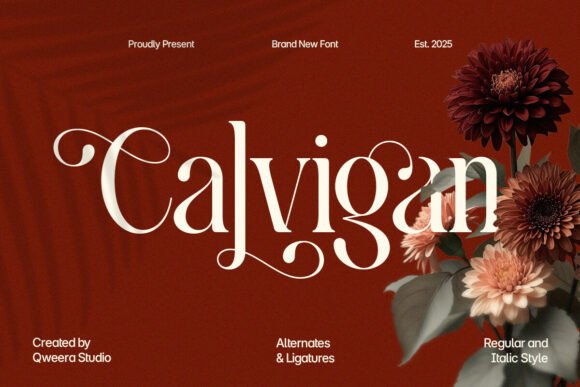
The Elusive Perfect Font: My Encounter with Calvigan Font
As a designer, I’ve had my fair share of frustrating moments – none more so than the endless search for the perfect font. I recall working on a luxury branding project for a high-end beauty client, determined to find a typeface that exuded elegance, sophistication, and a touch of femininity. The challenge was real, until I stumbled upon Calvigan Font.
What is Calvigan Font?
Calvigan Font is a modern, elegant serif typeface designed specifically for luxury branding and feminine visual identity. Its graceful curves, premium proportions, and refined details make it an ideal choice for logos, invitations, wedding stationery, packaging, and beauty brands. This serif font seamlessly blends timeless romance with modern elegance, perfect for premium creative projects.
• ✨ Elegant and Refined: Calvigan Font boasts a sophisticated look that elevates any design project.
• ✅ Versatile: Suitable for a wide range of applications, from logos and branding to wedding invitations and packaging.
• 💫 Feminine Touch: Adds a touch of femininity without being overly frilly or over-the-top.
• 📈 Scalability: Maintains its elegance and clarity at various sizes.
While Calvigan Font is exceptional, there are a few minor considerations:
• 🤔 Glyph Variety: While it has a robust set of glyphs, some designers might find the selection a bit limited for very specific needs.
• ⚠️ Legibility at Small Sizes: Like many elegant serif fonts, it may lose some legibility at very small sizes (below 8pt).
Calvigan Font comes with a range of OpenType features, including stylistic alternates, ligatures, and a variety of glyphs. To access these:
The story behind Calvigan Font begins with a designer’s quest to create a typeface that embodies both timeless elegance and modern sophistication. Inspired by classic luxury brands and the beauty of handwritten scripts, Calvigan Font was crafted to serve as a versatile tool for designers seeking to infuse their projects with a sense of premium quality and feminine charm.
Q: What makes Calvigan Font unique?
A: Calvigan Font stands out for its elegant serif design, premium feel, and feminine touch, making it perfect for luxury branding and feminine visual identities.
Q: Is Calvigan Font suitable for body text?
A: While Calvigan Font is elegant and highly readable, its primary use is for headlines and short texts. For body text, consider a more straightforward, highly legible font.